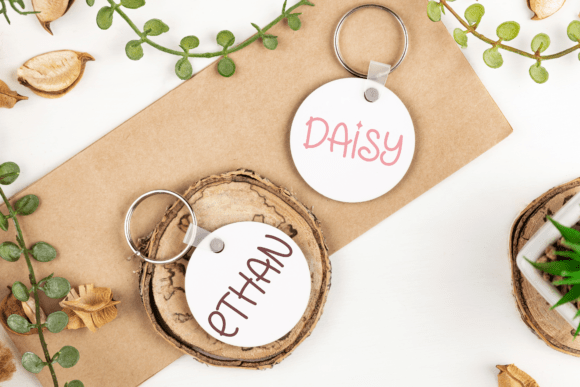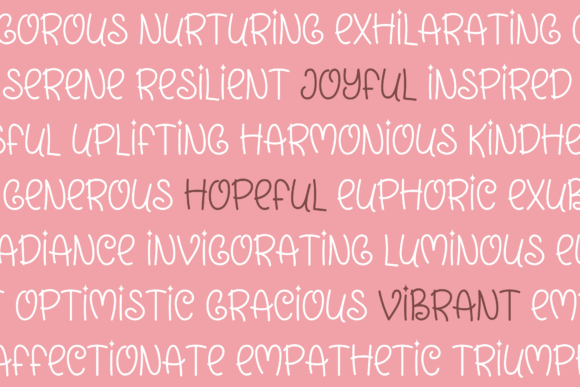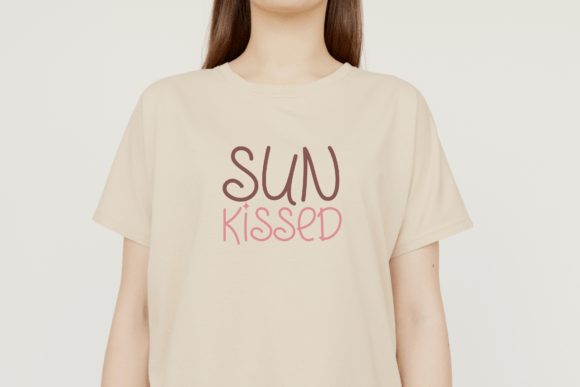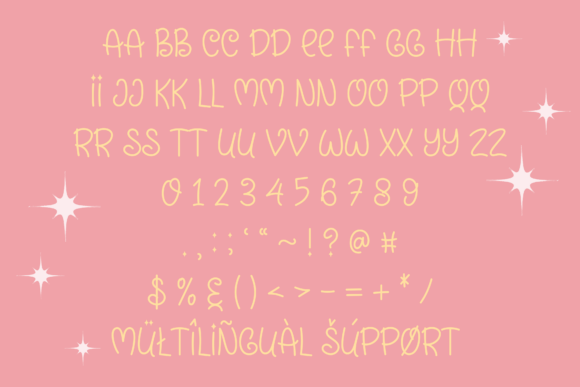
Unlock the Whimsy: Discover the August Magic Font
Have you ever stumbled upon a font that makes you feel like you’re doodling in a notebook from your childhood? For designers, finding that perfect font can be a game-changer. It’s the moment when your project goes from ordinary to extraordinary. You know that feeling, right?
Enter the August Magic Font, a delightful handwritten font that brings a touch of magic to your designs. Whether you’re creating social media graphics, planning digitally, or making projects for kids, this font is the perfect companion. With its charming vibe and multilingual support, the August Magic Font is an excellent choice for branding, invitations, DIY crafts, and more. Its versatility makes it a valuable asset for designers looking to add a personal touch to their projects.
Get ready to unleash your creativity with the August Magic Font and take your designs to the next level!
August Magic Font Key Features
- Font Family: August Magic is a modern script font that comes in a single-family with multiple weights.
- Unique Characteristics: Features a unique, hand-crafted design with a touch of magic, perfect for creating a whimsical and enchanting atmosphere in designs.
- Language Support: Supports a wide range of languages, including Latin, Cyrillic, and Greek alphabets, making it a versatile font for global designs.
- Unique and whimsical design: The August Magic Font has a distinct personality that sets it apart from other fonts.
- Elegant and sophisticated feel: The font’s curves and lines evoke a sense of luxury and refinement.
- Perfect for creative projects: The August Magic Font is ideal for designers who want to add a touch of magic to their work, such as in invitations, wedding designs, or children’s books.
- Limited versatility: While the font is great for creative projects, it may not be the best choice for formal or professional documents, such as business reports or academic papers.
- Difficult to read in small sizes: The font’s unique design can make it challenging to read when used in small sizes or at a distance.
The August Magic Font is a beautiful and imaginative choice for designers who want to add a touch of magic to their work. While it may have some limitations, its unique design and elegant feel make it a great option for creative projects. With proper use and consideration of its limitations, the August Magic Font can be a valuable addition to any designer’s toolkit.
The August Magic Font is ideal for:
- Photography and art prints
- Marketing and branding materials